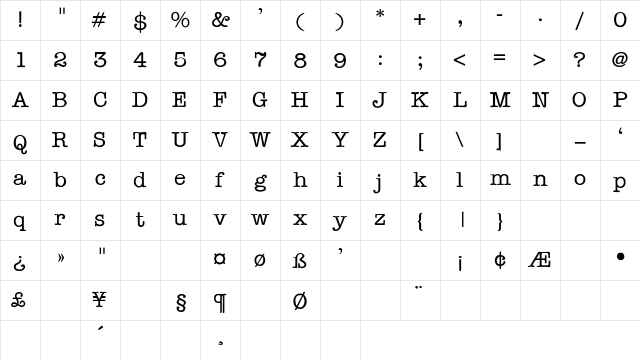
REMMINGTON-THIN Regular Free Font
REMMINGTON-THIN Regular
REMMINGTON-THIN Family
Complete REMMINGTON-THIN Regular glyph index. Displaying only characters natively supported by REMMINGTON-THIN Regular font.
Design Context for REMMINGTON-THIN
REMMINGTON-THIN is a composed and adaptable typeface that performs quietly and consistently across a wide range of design contexts. Its slender proportions lend an understated elegance to any composition.